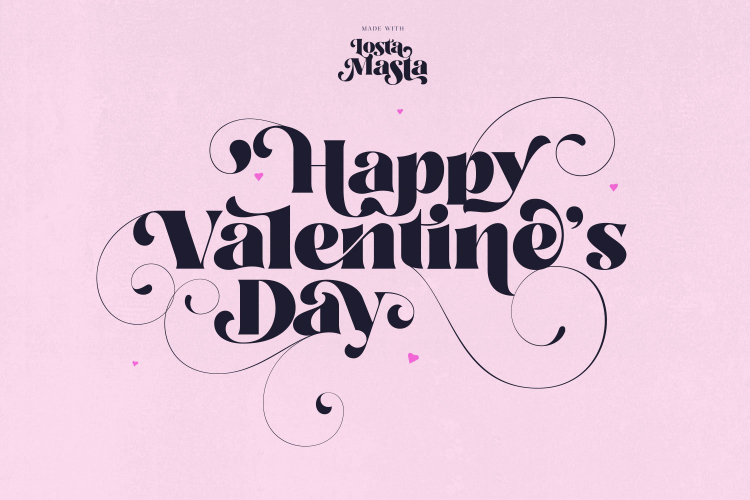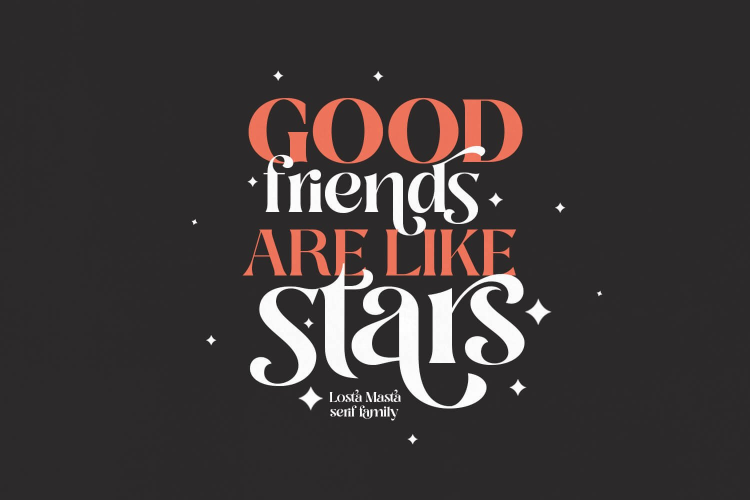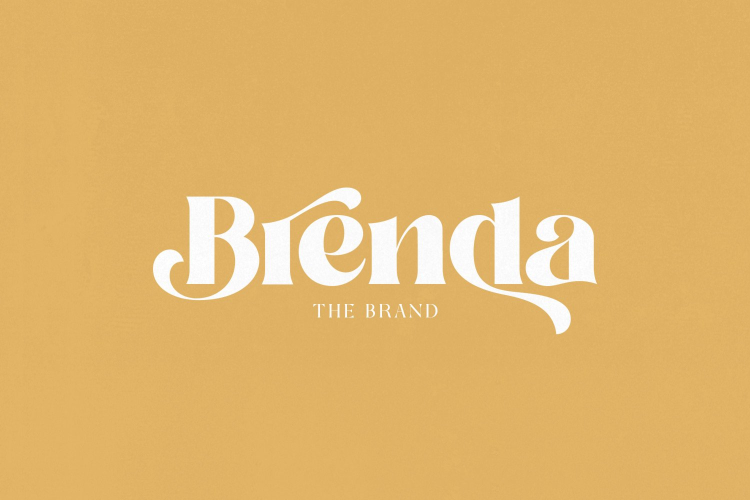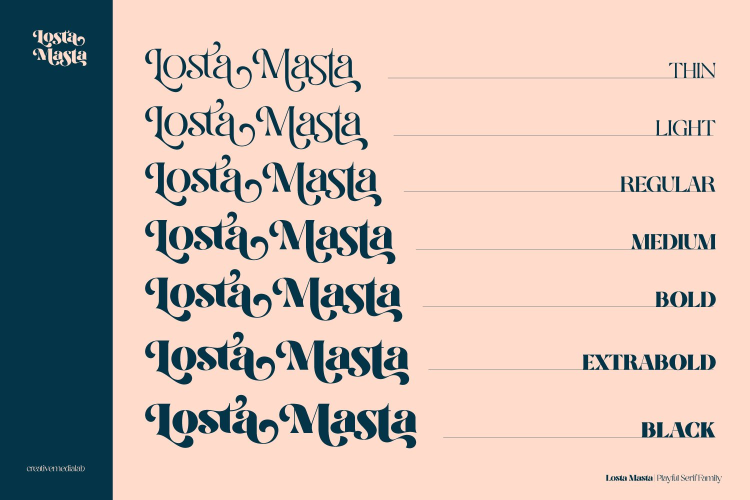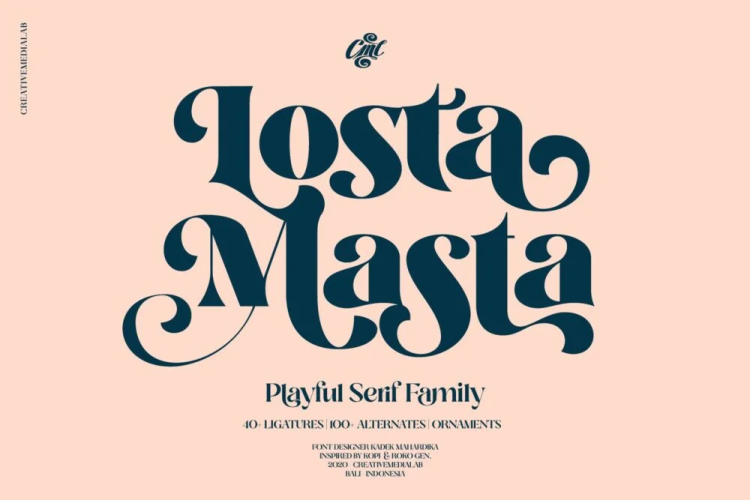
Losta Masta Font
Losta Masta Font fun and playful serif family. This font is suitable for many design forms, such as magazines, postcards, logos, DIY Projects, invitation cards, quotes,…
Losta Masta Font fun and playful serif family. This font is suitable for many design forms, such as magazines, postcards, logos, DIY Projects, invitation cards, quotes, vintage look design, an old classic, the 60s, 70s, 80s, wedding projects, and much more.
Where Losta Masta Font works best
Thumbnails and covers
Losta Masta Font is built to be recognised small. Three words, high contrast, and it survives being scaled to a phone screen.
Event and match posters
Display letters at full width make a date and a name readable across a room, which is all a poster has to do.
Merch and streetwear
Heavy display shapes print cleanly on fabric and stay legible when the garment moves.
What kind of work does Losta Masta Font suit?
It sits in the Display Fonts group and reads as branding, classic, display, display fonts. That makes it a candidate wherever those qualities help: headings, packaging, social graphics and brand work. Set it at the size you plan to use before deciding.